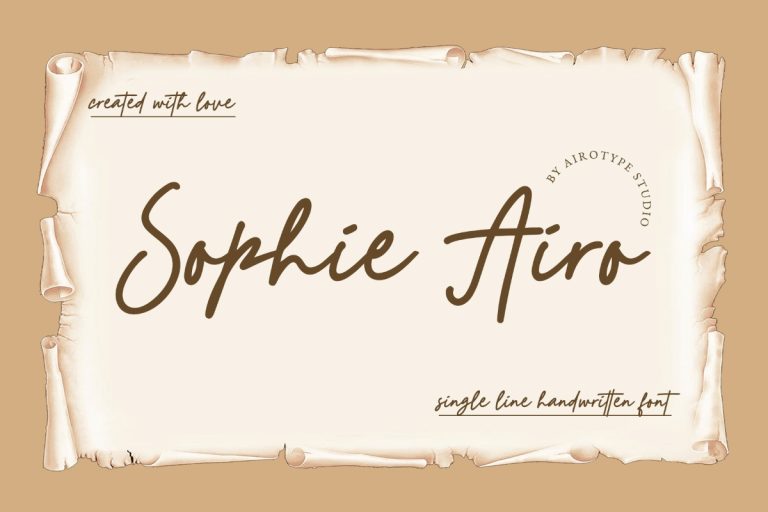
Sophie
Sophie is monoline signature font. This font is fancy, chic, and simple. It is casual and simple font, which can be used for wide ranges of design projects, especially designs that need signature handwritten and elegant touch.
Sophie is perfect font for any projects, such as wedding invitation, signature, greeting card, t-shirt design, crafting, sticker, sublimation, and many more.